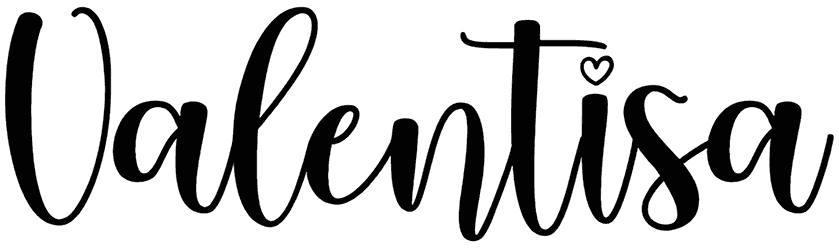
Valentisa Font
If you still need to find the right font for your greeting card or need help thinking of how to express your love, Valentisa is a handwritten font that can create the perfect text once it is added in.
Personalization will make a positive impression on the audience. This Valentine’s Day font ideally adds a romantic aesthetic to the project with its rhythmic connections and small decorations. Thus, this handwritten font will be a great idea this Valentine’s Day.